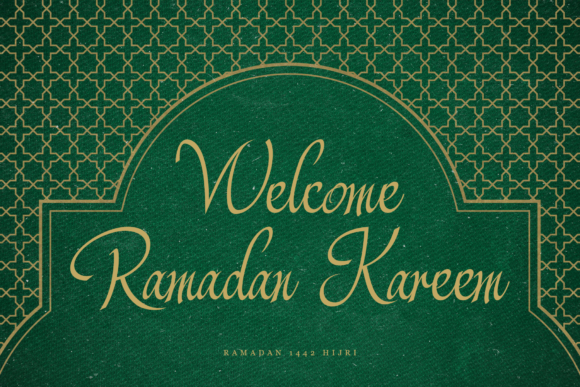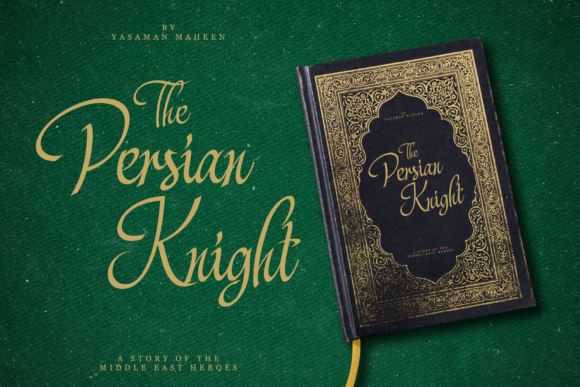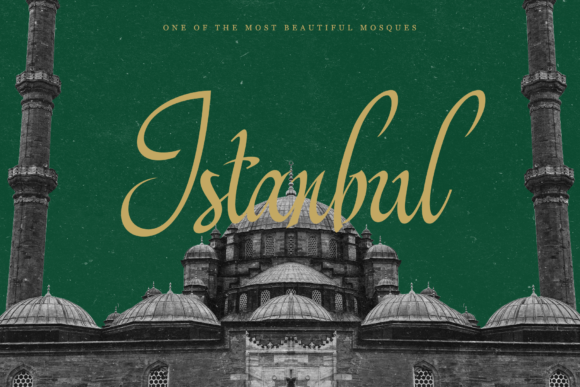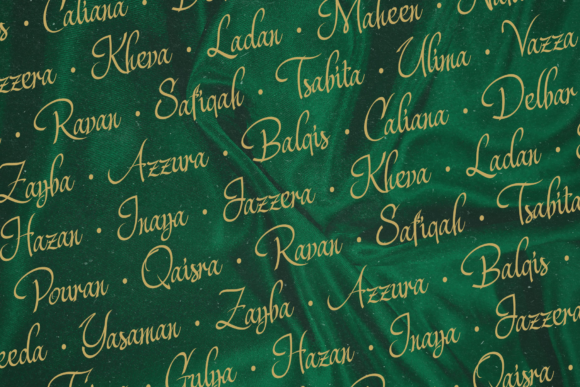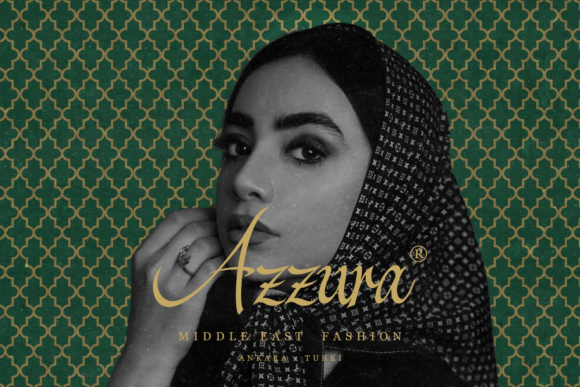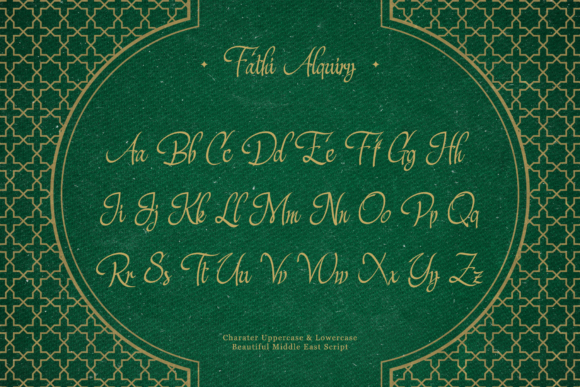
Introduction to Fathi Alquiry Font
As a designer, there’s nothing quite like the rush of inspiration that comes with creating something new. You’re brainstorming ideas, sketching out concepts, and pouring your heart into a project that you hope will bring joy to others. And then, it hits you – the perfect font to tie everything together. For many of us, that moment is the key to unlocking a truly special design. Enter the Fathi Alquiry Font, a stunning handwritten font that’s sure to elevate any creative project.
With its unique, high-quality design and transparent background, this font is a valuable resource for designers looking to add a personal touch to their work. Whether you’re creating eye-catching logos, branding materials, or quotes, the Fathi Alquiry Font is sure to make your design come alive. And the best part? It’s available for free download, making it an accessible and affordable design resource for creatives of all levels.
Key Features of Fathi Alquiry Font
- High-quality design resource ideal for creative projects, offering a professional and sophisticated look.
- Comes in a transparent background version, allowing for seamless integration with various design elements.
- Features a unique and elegant design, making it perfect for use in logos, branding materials, and other visual identity projects.
Honest Review: Fathi Alquiry Font
As a designer, I’m always on the lookout for high-quality fonts to elevate my creative projects. Recently, I came across the Fathi Alquiry Font, and I’m excited to share my honest review.
Here’s what works well:
- ✨ Unique and elegant design: The Fathi Alquiry Font has a beautiful, modern aesthetic that’s perfect for a variety of design projects.
- ✨ High-quality glyphs: The font includes a wide range of glyphs, ensuring that you have everything you need to create visually appealing designs.
- ✨ Transparent background: This font is ideal for designers who want to create designs with a transparent background, making it perfect for graphics and other visual elements.
- ⚠️ Limited font styles: The Fathi Alquiry Font only comes in a few styles, which may not be suitable for designers who need a wider range of font options.
- ⚠️ No bold or italic variants: While the font has a beautiful regular style, it would be great to have bold and italic variants to add more depth to designs.
Overall, the Fathi Alquiry Font is a great design resource that’s perfect for designers who want a high-quality, elegant font for their creative projects. With a free download available, it’s definitely worth checking out.
Here are some tips for getting the most out of the Fathi Alquiry Font:
Use the font in combination with a transparent background to create a clean and modern design.
Experiment with different font sizes and styles to add visual interest to your design.
Use the font in a variety of creative projects, such as brochures, business cards, and social media graphics.
The Fathi Alquiry Font is commonly used in a variety of design applications, including:
Brochures and flyers
Business cards and letterheads
Social media graphics and ads
Website headers and footers
Alternatives to Fathi Alquiry Font